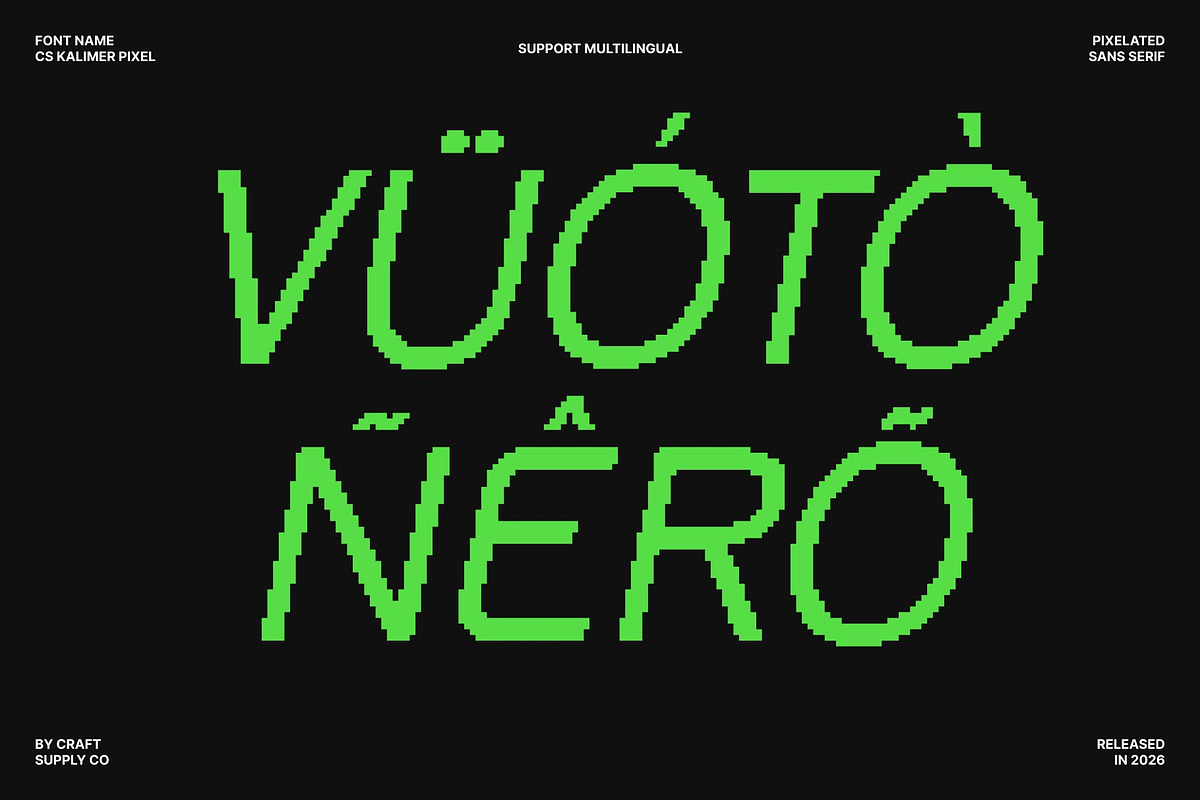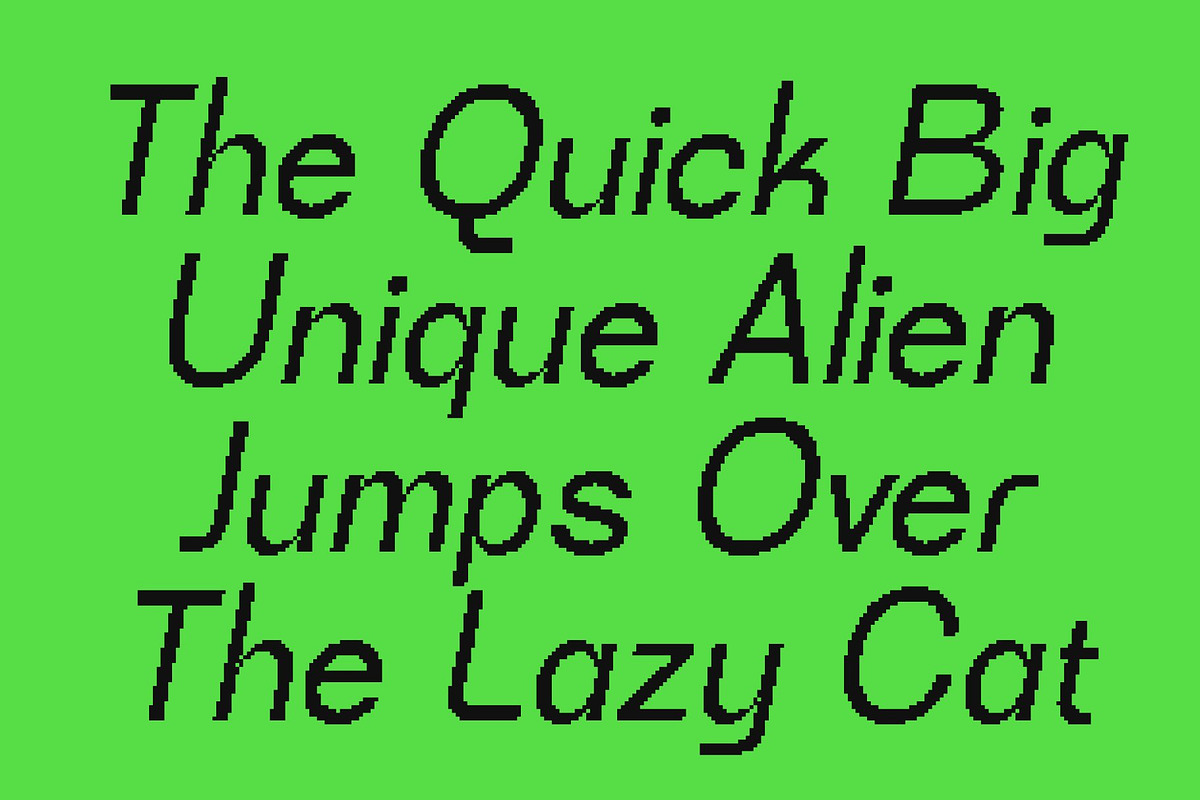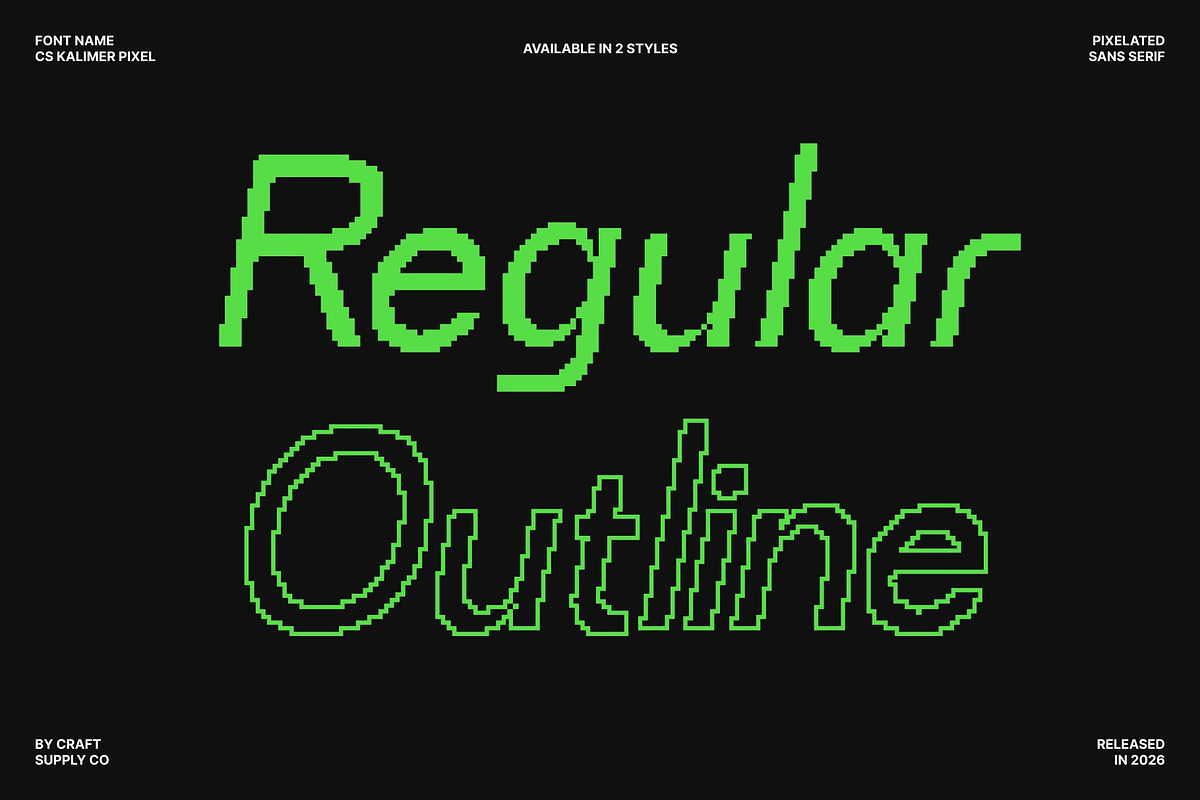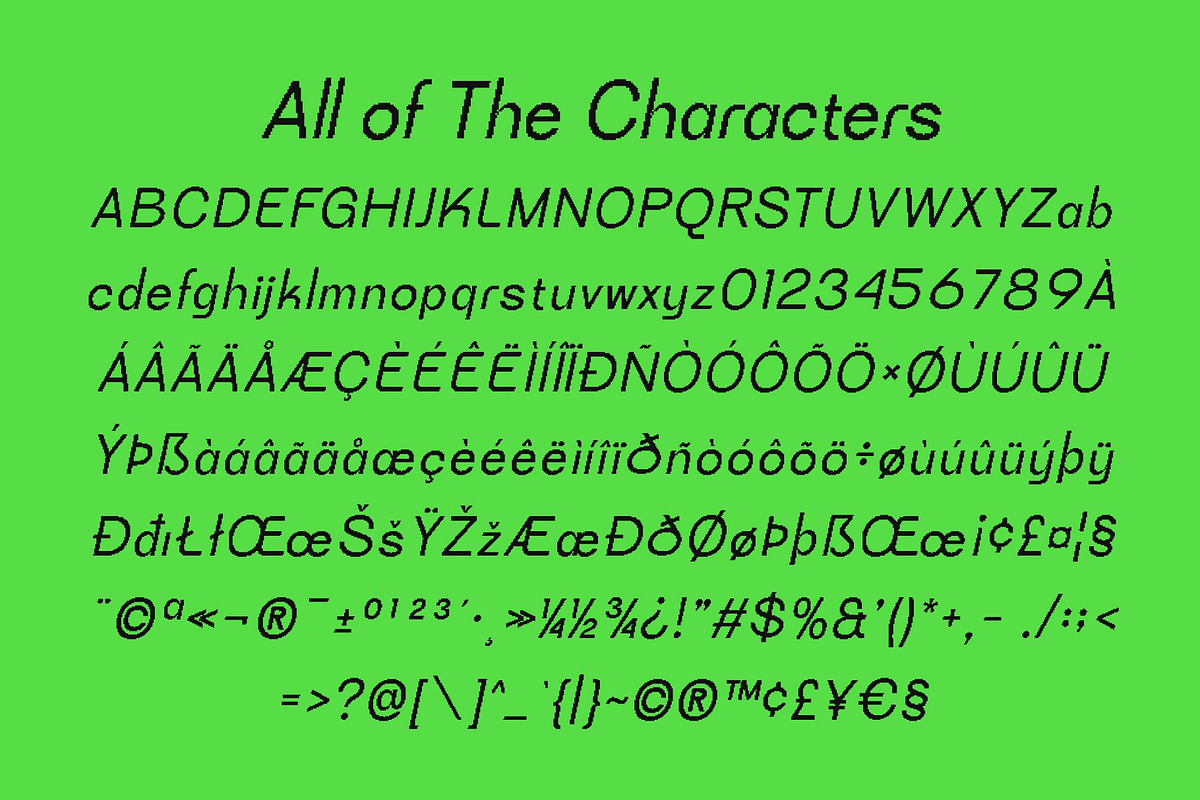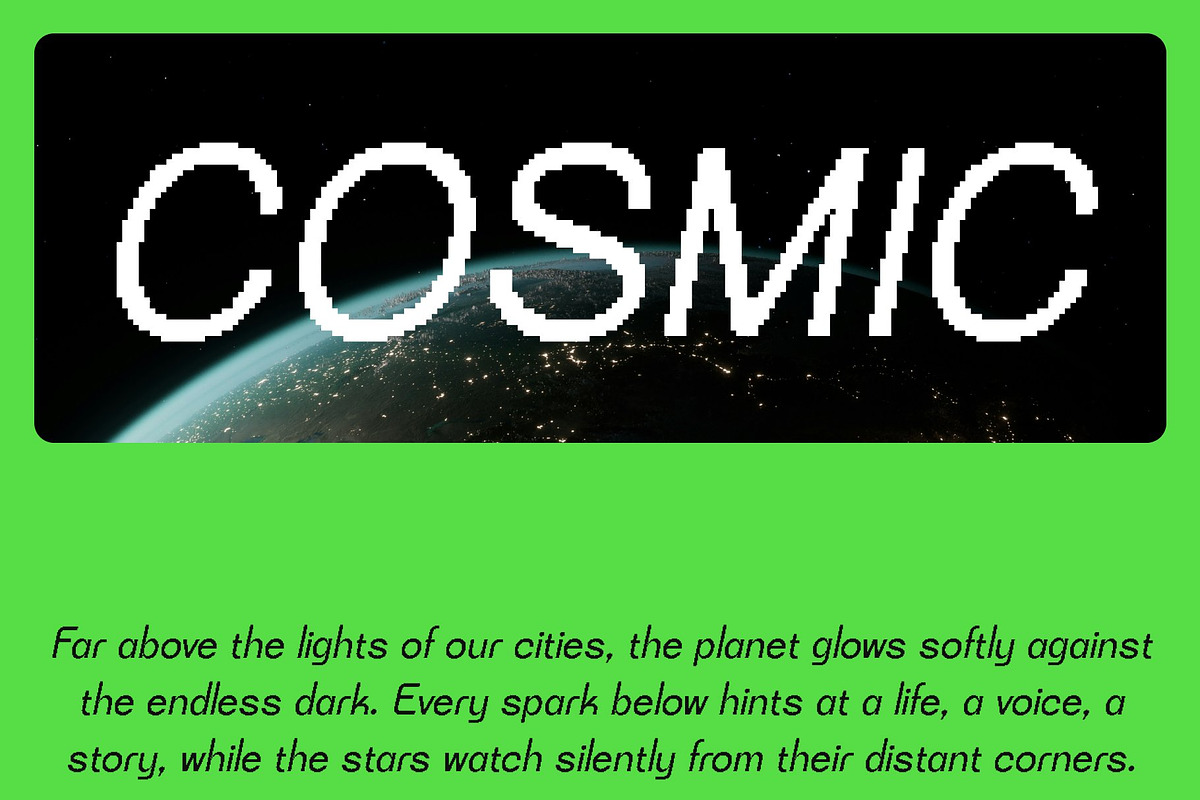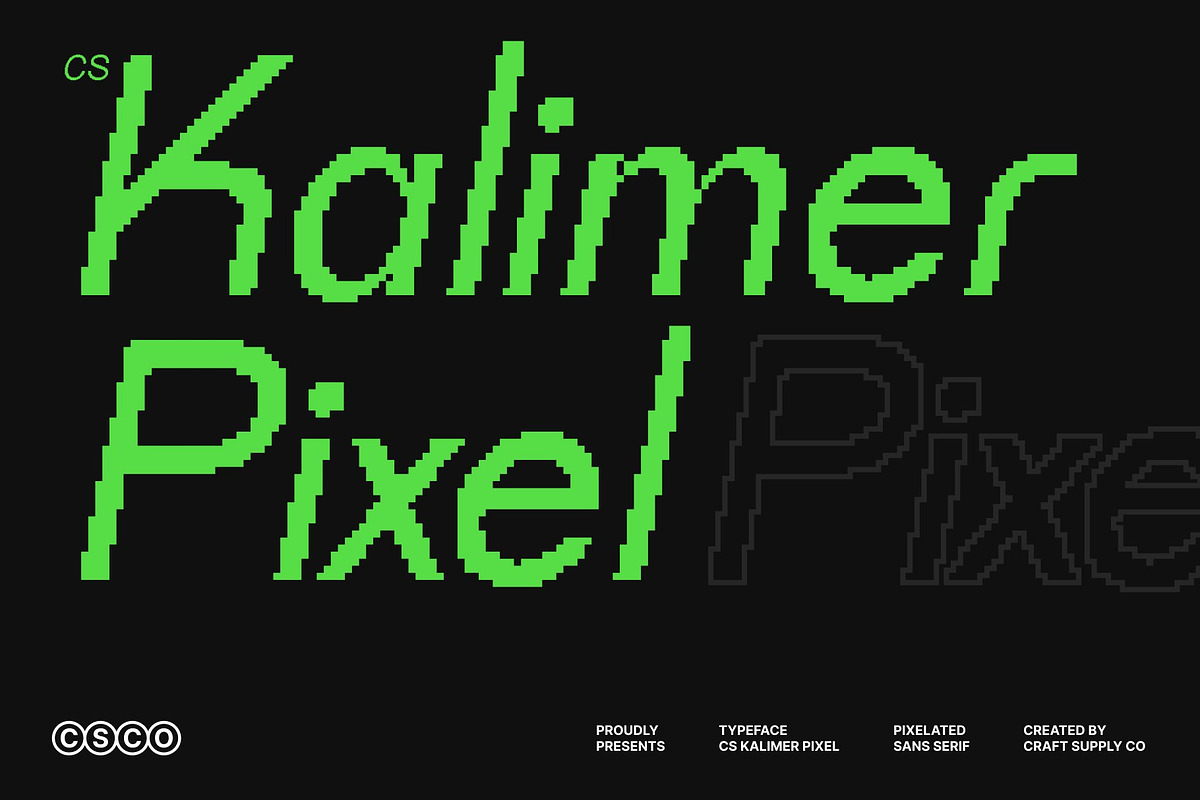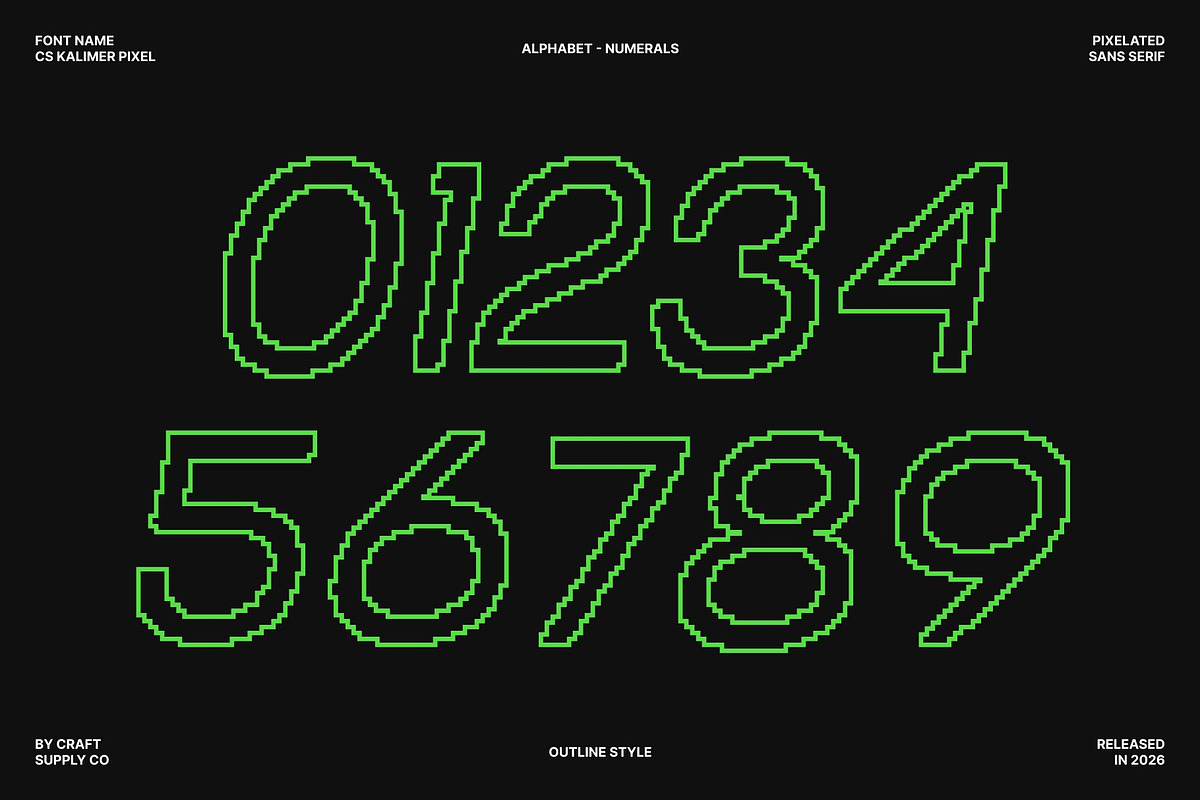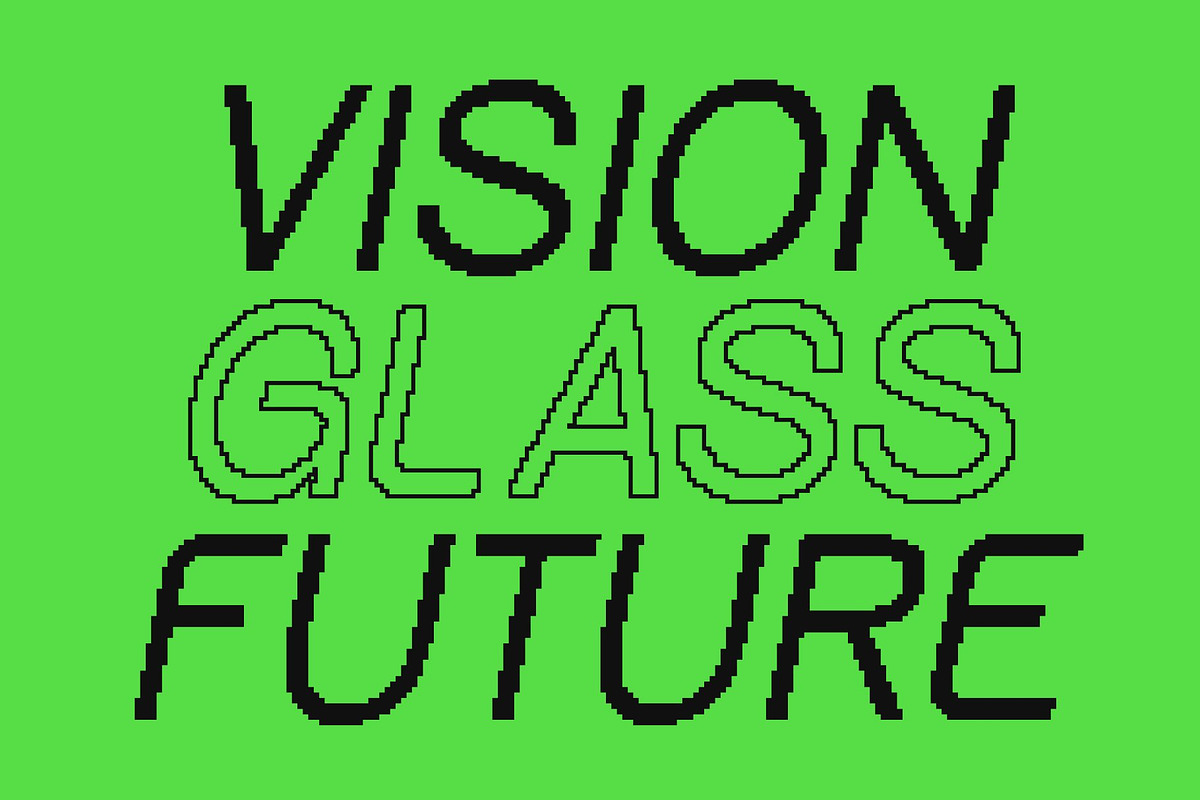
CS Kalimer Pixel
CS Kalimer Pixel – Modern Sans Serif Font
Clean and Modern with Retro Pixel Character This is a modern sans serif font reimagined through a pixel-based construction that delivers a clean, structured, and distinctly digital appearance. While maintaining simple and stylish letterforms, the bitmap design introduces a retro 8-bit impression, blending modern clarity with nostalgic charm inspired by early digital and old-technology visuals.
Sharp Corners and Rigid Pixel Structure Built on a precise pixel grid, this font features sharp corners, rigid geometry, and consistent modular forms. This bitmap structure reinforces its retro aesthetic while ensuring legibility and visual stability. The result is a font that feels bold, technical, and unmistakably digital without sacrificing readability.
Ideal for Digital and Retro-Inspired Designs Perfect for web design, user interfaces, logos, posters, games, and tech-inspired graphics, excels in projects that reference classic computer screens, early video games, and vintage digital systems. Its pixel precision ensures crisp rendering on screens, making it especially effective for digital and interactive media.
Versatile Style with a Modern Retro Touch Despite its retro 8-bit influence, this font remains versatile and stylish. It adapts effortlessly to a wide range of applications, from minimalist branding to nostalgic visuals. Whether you’re designing for modern platforms or old-technology aesthetics, this font adds a distinct, memorable typographic voice with a clean yet retro digital edge. ** *Download Type Speciment: **
CS Kalimer Pixel Regular